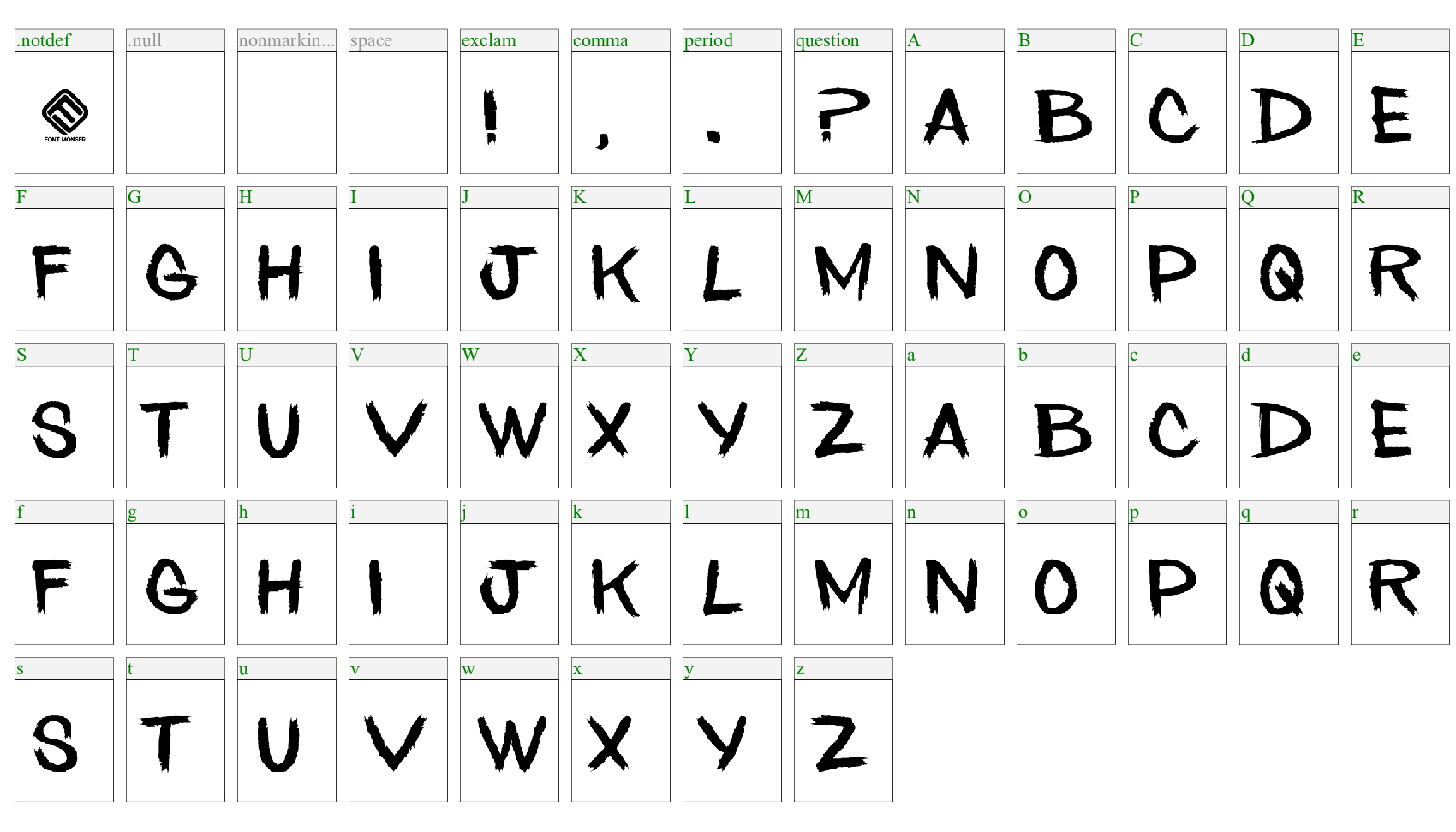
Among Dead Priests: A hand-drawn font with a creepy and sinister feel, inspired by the world of horror. Its organic, scribbled letters give the font a raw and personal touch, while its distorted shapes and rough edges evoke the feeling of an ancient curse or a haunted graveyard. Ideal for creating posters, book covers, and other projects that require a touch of fear and terror, Among Dead Priests font is sure to send shivers down the spine.
Lowercase: Same as uppercase
Numbers: No
Symbols: Very Limited (see image for available characters)
Accents: No
Theme: Horror, Brush